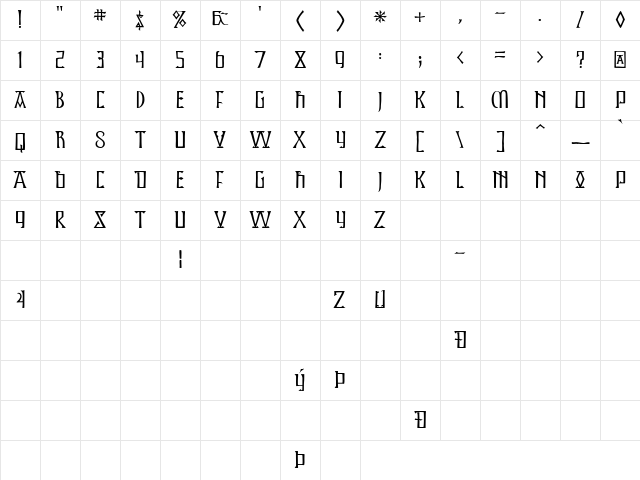
P22 Kells Square
Style: Square
Design Context for P22 Kells
P22 Kells is a composed and adaptable typeface that performs quietly and consistently across a wide range of design contexts.